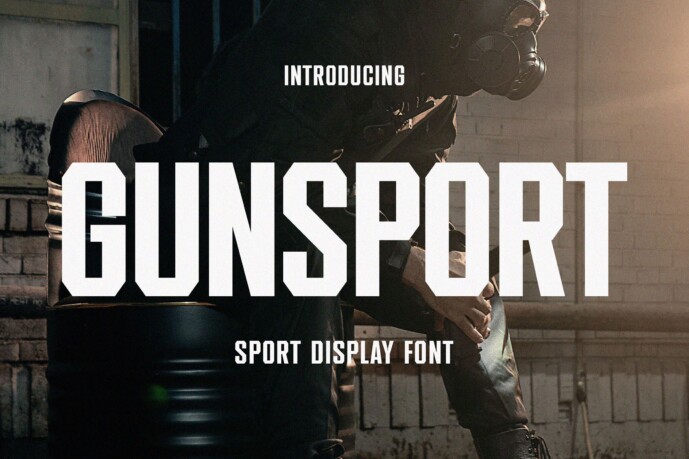
Gunsport Font
Gunsport is a bold and assertive sans serif font. No matter the topic, this font will be an incredible asset to your fonts library, as it has the potential to elevate any creation.